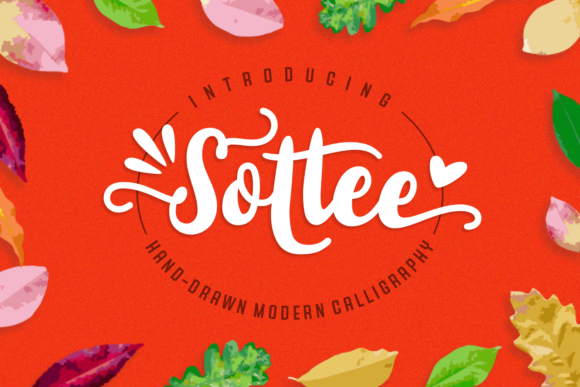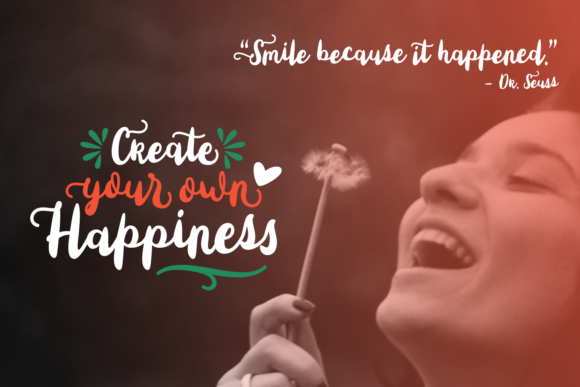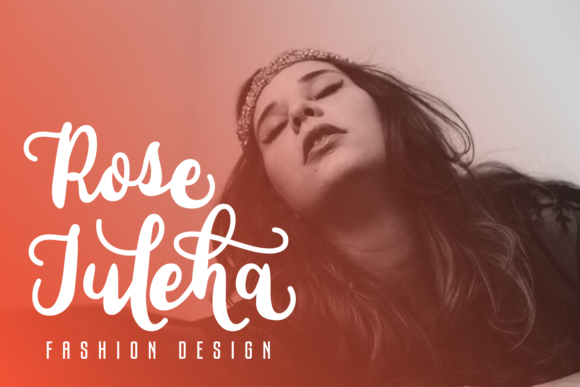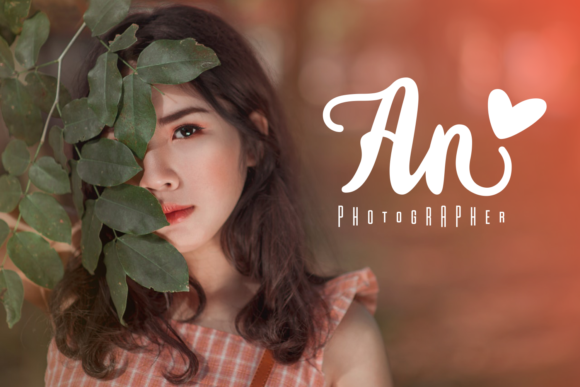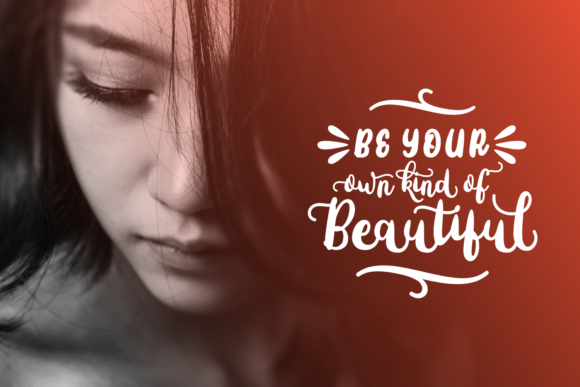
Sottee Font
About Sottee Font
Sottee is a modern hand-written typeface.
Featuring a calligraphic-style, this font is great for adding a unique personal touch to your designs in a second. It features bold letters that are easy to read, which makes it great for creating designs that are meant to have a strong impact.